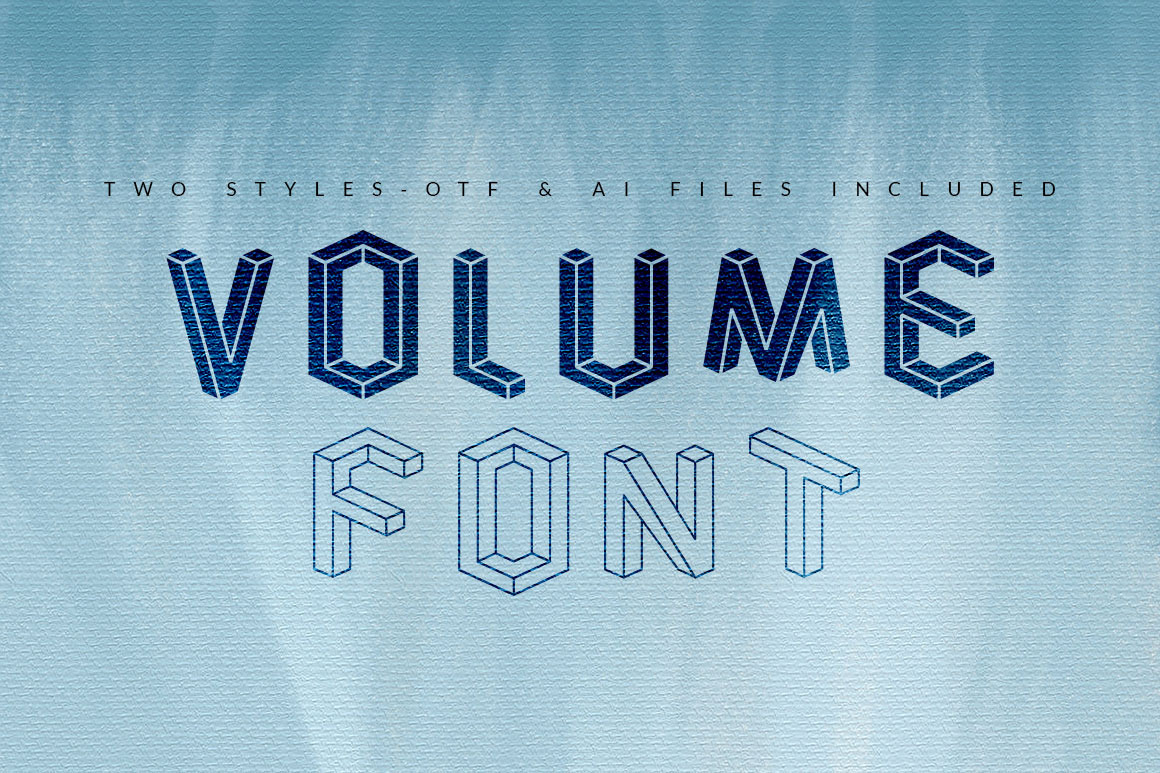
Volume Font and Vector Two Styles
Volume Font is a font created from a 3D Grid. It's a surrealistic and fun font that can bring personality to your designs. It comes in two different styles, Regular and Outline.
Enjoy using Volume Font for your printed work such as fliers, brochures, logos, and your digital projects such as websites, apps, emailings, etc. Each letter is already a logo! So many possibilities! Untie your creativity and have fun!